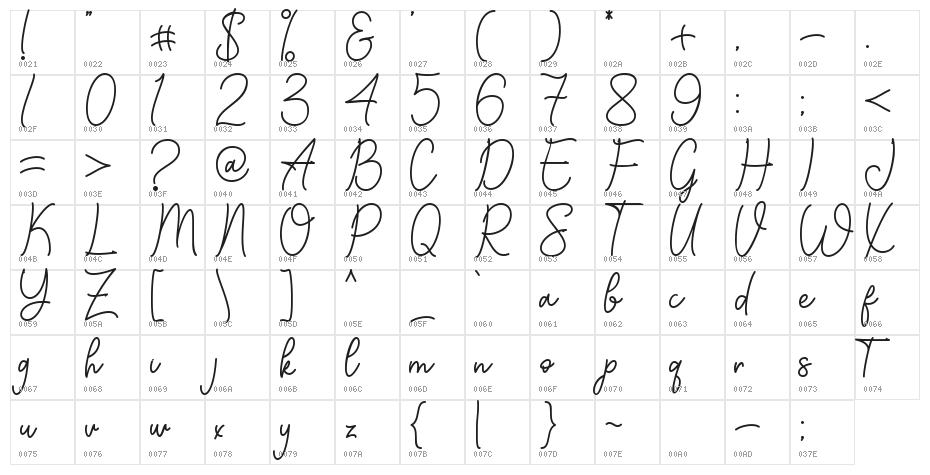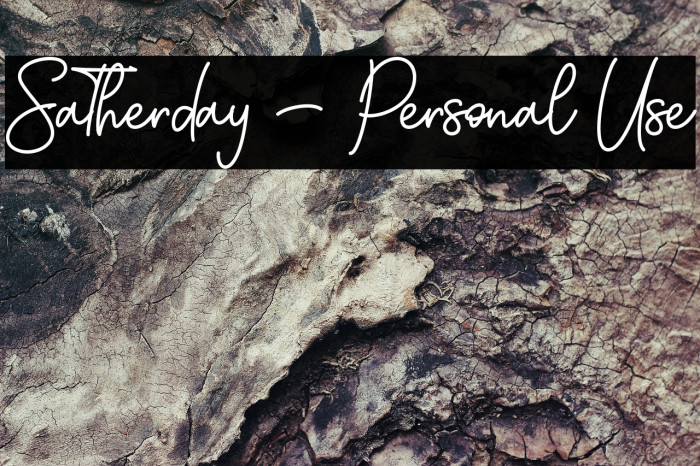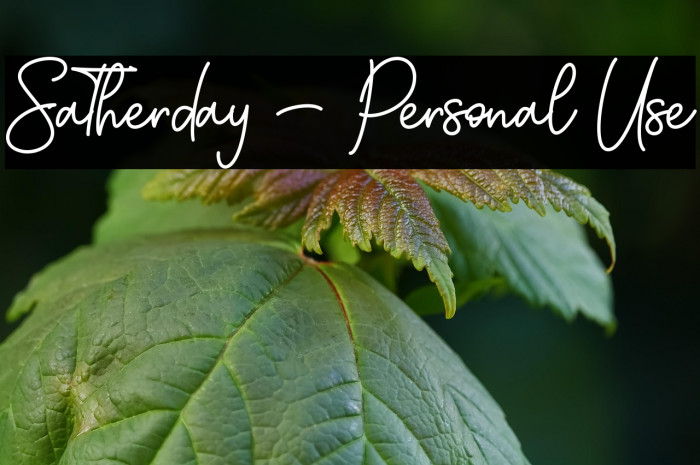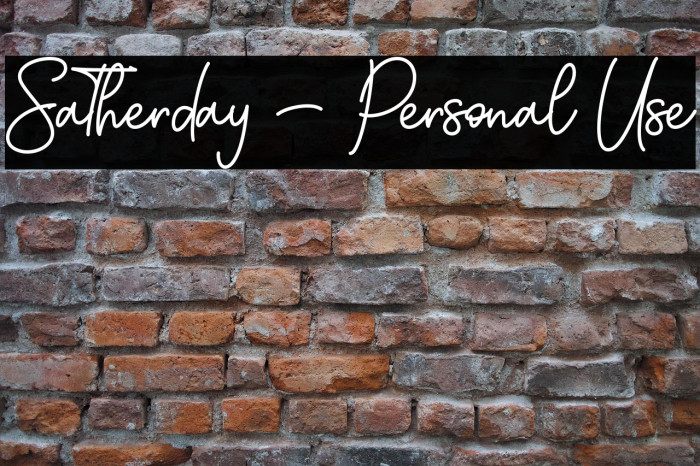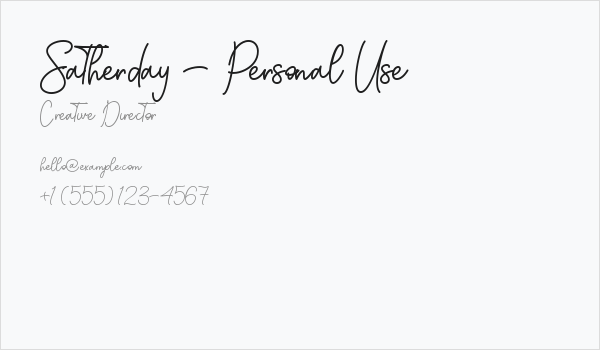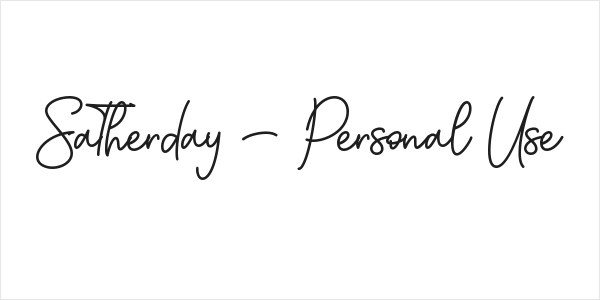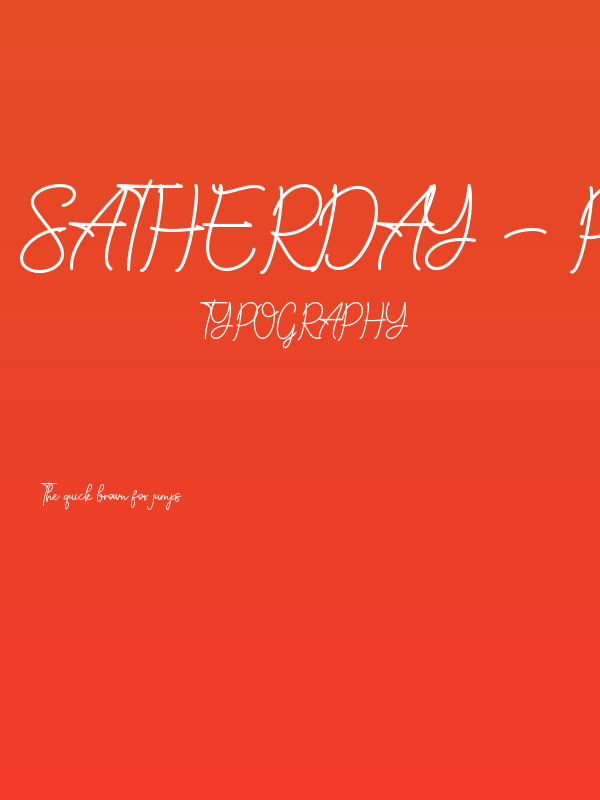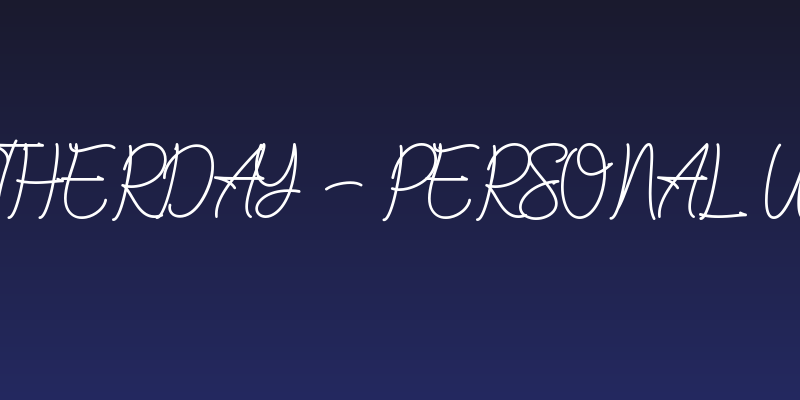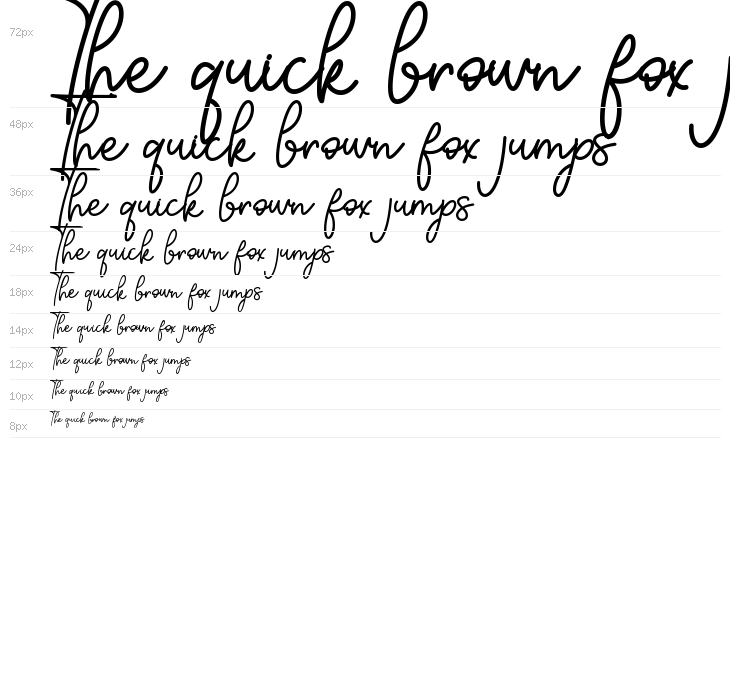
Satherday - Personal Use Font
Satherday - Personal Use Description
This font features a playful and flowing script style, characterized by its smooth, continuous strokes and elegant curves. The uppercase letters are tall and slender, with a slight slant, adding a touch of sophistication. The lowercase letters maintain a consistent flow, enhancing readability while retaining a casual, handwritten feel. Numbers and special characters are designed with the same fluidity, ensuring a cohesive look across all text. The overall appearance is both modern and whimsical, making it suitable for a variety of creative applications.